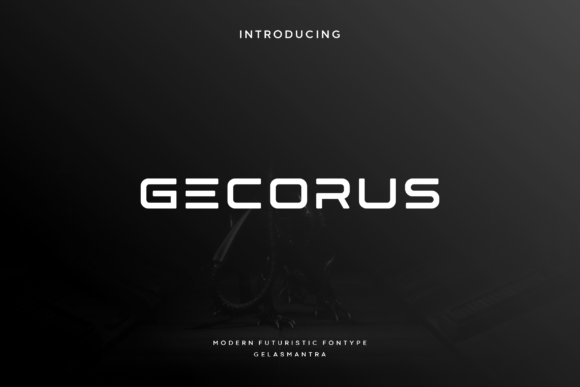
Journey through the cosmos with Gecorus: A Font of the Future
In a realm where imagination reigns supreme and creativity knows no bounds, there exists a font that defies the ordinary. Gecorus, a display typeface born from the depths of science fiction, beckons you to explore the uncharted territories of design.
Gecorus is a testament to the power of minimalism, its sleek and streamlined characters embodying a world of elegance and sophistication. Each letterform is meticulously crafted, exuding a sense of precision and purpose. This font is not merely a tool; it's a portal to a universe of limitless possibilities.
With Gecorus as your guide, embark on a visual odyssey that transcends the boundaries of time and space. Let its clean lines and sharp angles transport you to a realm where technology and art harmoniously intertwine. Whether you're crafting movie titles, designing captivating posters, or creating logos that leave an indelible mark, Gecorus is your trusted companion.
Unleash your creativity and let Gecorus ignite your imagination. Its versatility knows no bounds, seamlessly adapting to a myriad of digital and print media. Web fonts, labels, and even the most daring of modern creations find their perfect match in this extraordinary typeface.
Step into the future with Gecorus, where innovation and aesthetics converge. Experience the thrill of creating designs that resonate with a futuristic flair. Let this font be your muse, inspiring you to push the boundaries of visual expression and leave your audience in awe.